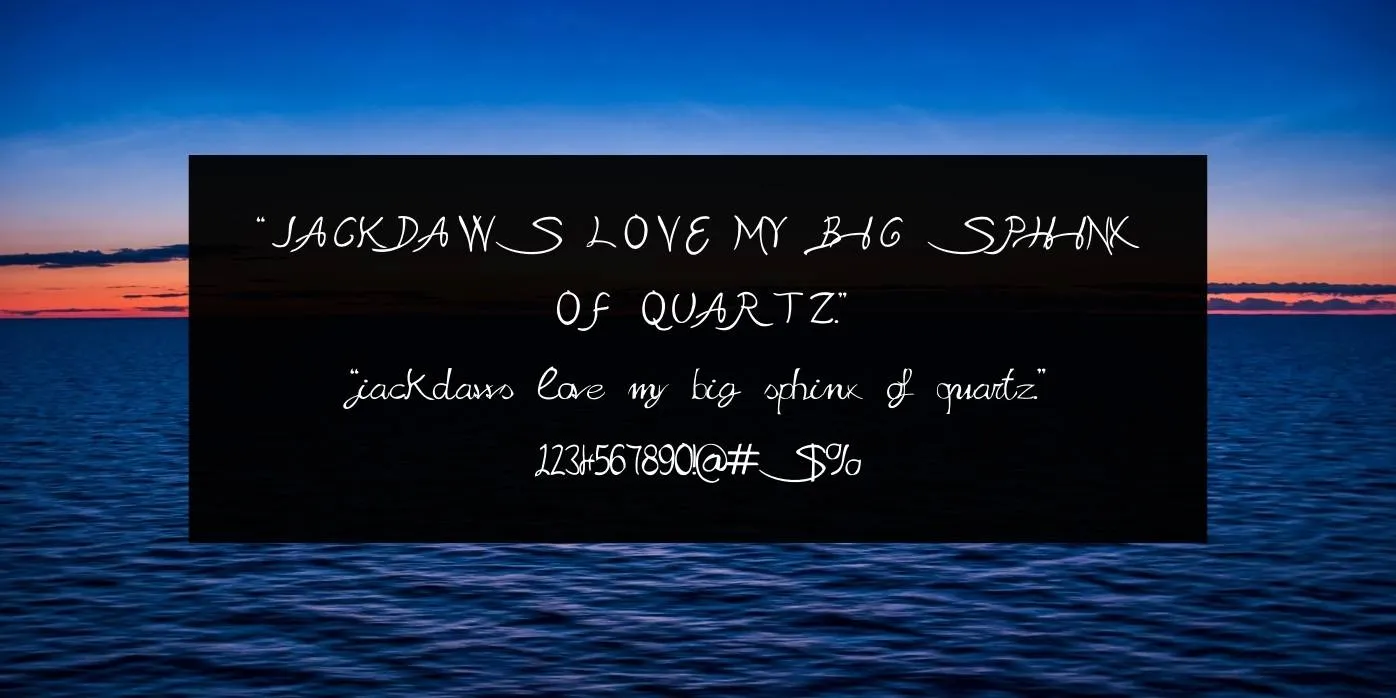
Sabrina Font
Sabrina Font is a popular fancy cursive font. It is named after the television character Sabrina Spellman from the show “Sabrina the Teenage Witch”. The font was created in 1999 by Type Associates. It is often used for invitations, greeting cards, and other formal documents.
This font style is largely useable in the font industry due to its both copy-paste and pairing function. The font has a unique cursive style that makes it stand out from other fonts. The Sabrina Font is a popular choice for personal and commercial use. It is often used for invitations, greeting cards, and other formal documents.